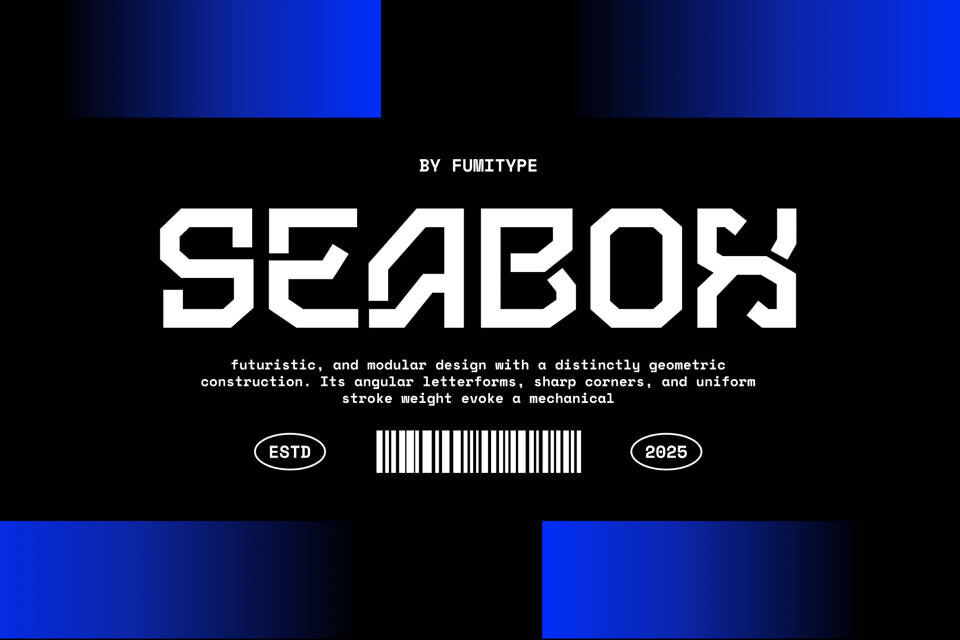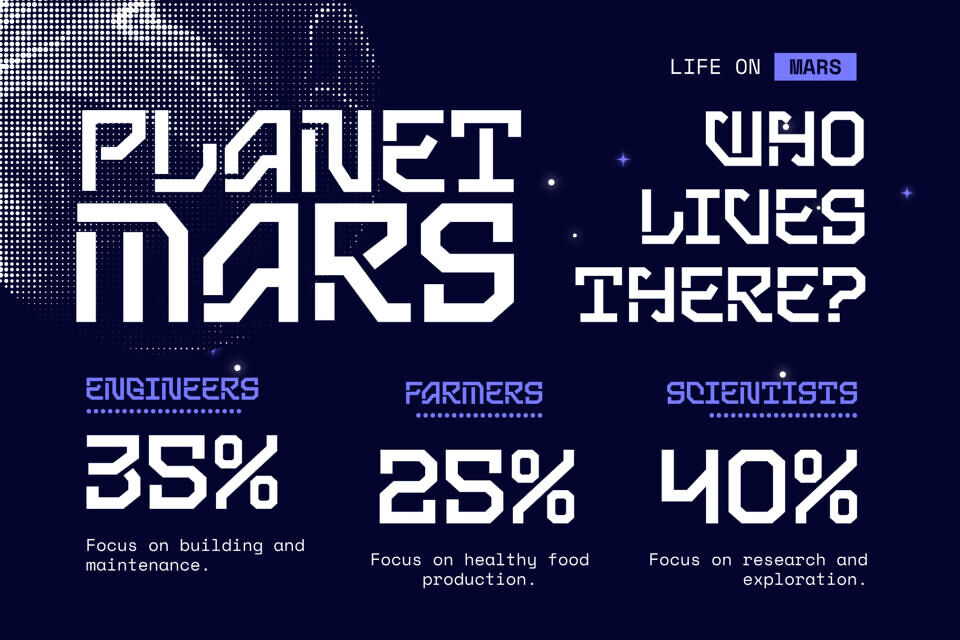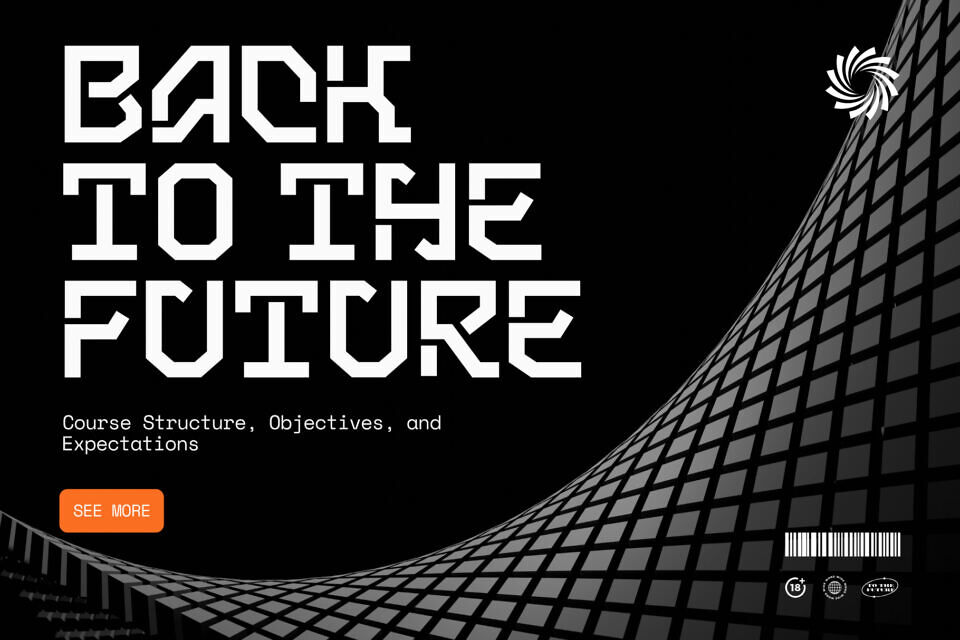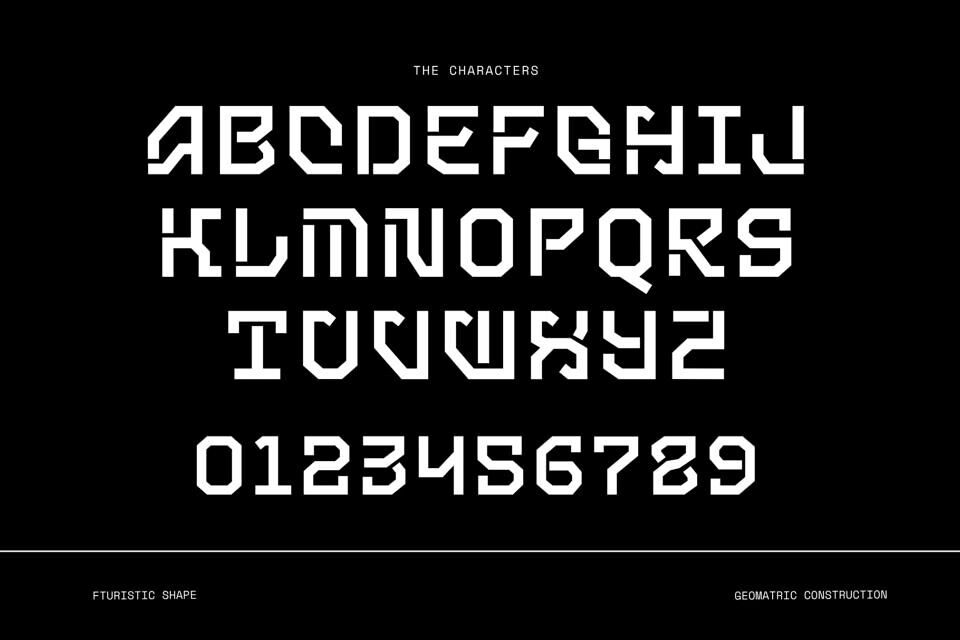
Seabox is a futuristic modular typeface built with bold geometric precision. Its angular letterforms, sharp edges, and industrial structure evoke a mechanical spirit that feels both digital and architectural. Perfect for tech branding, sci-fi visuals, posters, and experimental design, Seabox delivers a strong, modern edge to any project.